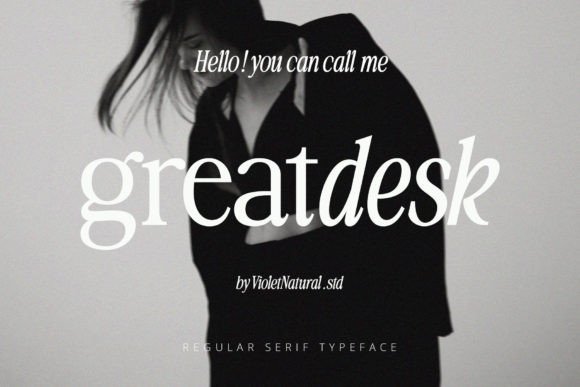
Greatdesk Font: A Timeless Classic for Digital and Print Media
In the world of typography, few fonts have managed to capture the essence of elegance and classic style quite like Greatdesk Font. This beautiful typeface has been making waves in the design community with its clean lines, sophisticated appearance, and versatility across various media platforms. Whether you’re working on a digital project or a print publication, Greatdesk Font is an excellent choice for designers and writers looking to add a touch of refinement to their work.
What is Greatdesk Font?
Greatdesk Font is a typeface that exudes a sense of classic elegance, making it perfect for a wide range of applications. Its design is characterized by clean lines, subtle curves, and a sophisticated appearance that commands attention without being overpowering. This font is particularly notable for its variations, including clean italic fonts, which add a dynamic element to any text.
Key Features of Greatdesk Font
- Classic and Elegant Style: Greatdesk Font boasts a timeless design that fits well with both modern and traditional themes.
- Variations in Clean Italic Fonts: The font comes with beautiful italic variations, adding flexibility and style to your typography.
- High Versatility: It is highly compatible with use in various media, including both digital and print media.
- Clean Lines and Subtle Curves: The design elements of Greatdesk Font contribute to its sophisticated and clean appearance.
Applications of Greatdesk Font
One of the standout features of Greatdesk Font is its adaptability across different mediums. Here are some of the areas where this font truly shines:
- Digital Media: For websites, blogs, and digital publications, Greatdesk Font offers a professional and clean look that enhances readability. Its elegant style works well for headings and body text alike.
- Print Media: In brochures, magazines, posters, and books, Greatdesk Font brings a level of sophistication and class. Its print-friendly design ensures that your text looks great in any printed material.
- Branding and Advertising: For logos, advertisements, and branding materials, the unique yet classic style of Greatdesk Font can help establish a strong and memorable visual identity.
Tips for Using Greatdesk Font
To make the most out of Greatdesk Font, consider the following typography tips:
- Mix and Match: Combine Greatdesk Font with other fonts to create contrast and interest. Its classic style pairs well with modern sans-serifs or decorative fonts.
- Play with Weights: If Greatdesk Font comes in multiple weights, use them to create visual hierarchy. Bolder weights for headings and lighter weights for body text can enhance readability.
- Adjust Kerning and Tracking: Fine-tune the spacing between letters and words to improve the overall appearance of your text.
- Utilize Italics: Take advantage of the clean italic variations for adding emphasis, quoting text, or creating a distinct look for certain sections of your content.
Greatdesk Font in Comparison to Other Fonts
When compared to other popular fonts, Greatdesk Font stands out for its unique blend of classic elegance and versatility. Unlike overly ornate or highly stylized fonts that may quickly go out of style, Greatdesk Font maintains a timeless appeal. It offers a more refined and sophisticated look compared to basic sans-serif fonts, making it suitable for projects where a touch of elegance is desired.
Greatdesk Font is a versatile and elegant typeface that brings a classic touch to any project. Its clean lines, beautiful italic variations, and adaptability across digital and print media make it an excellent choice for designers and writers alike. Whether you’re working on a professional publication or a personal project, Greatdesk Font can help you achieve a sophisticated and timeless look. With its broad range of applications and typography possibilities, Greatdesk Font is undoubtedly a valuable addition to any designer’s toolkit.